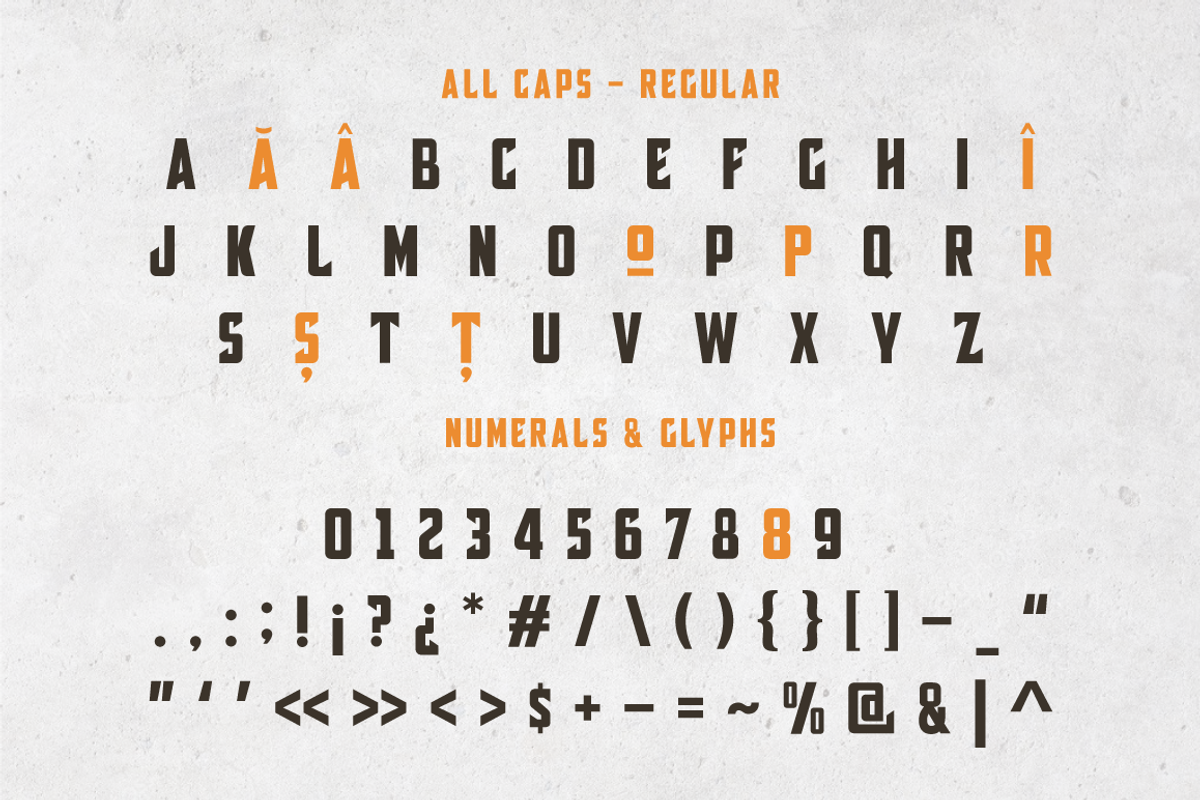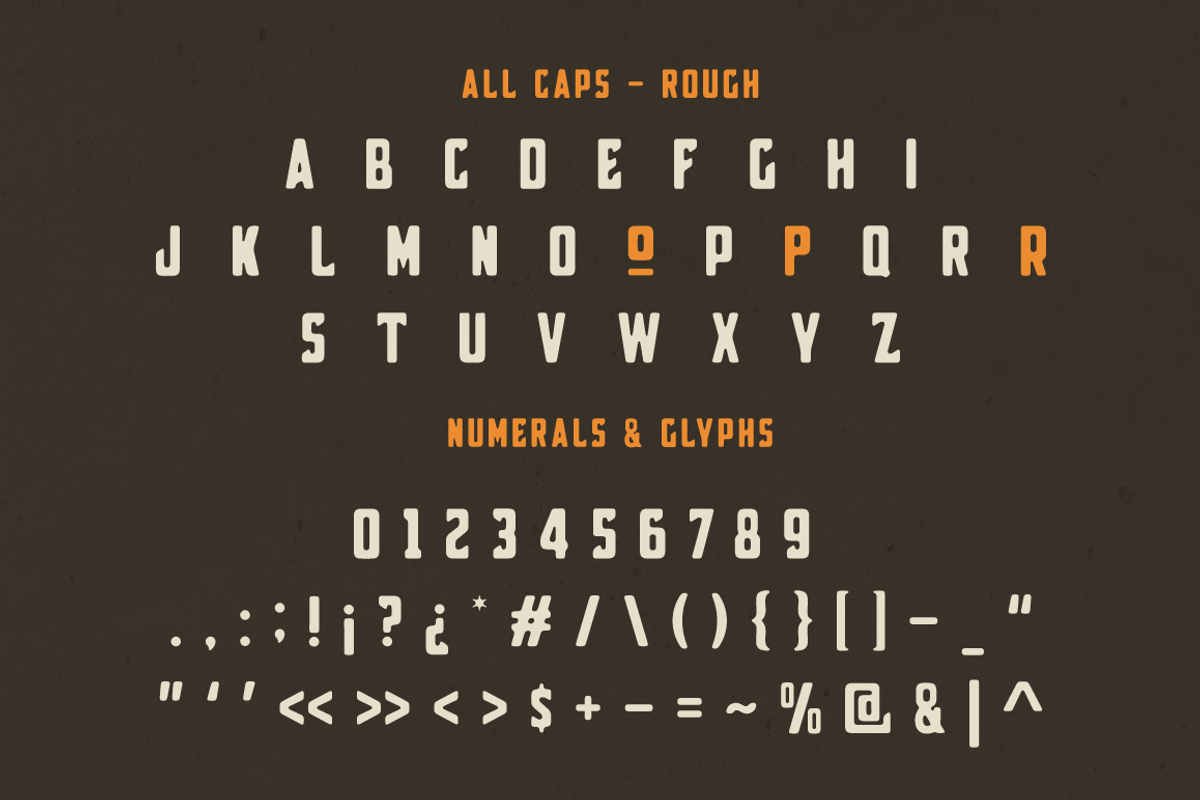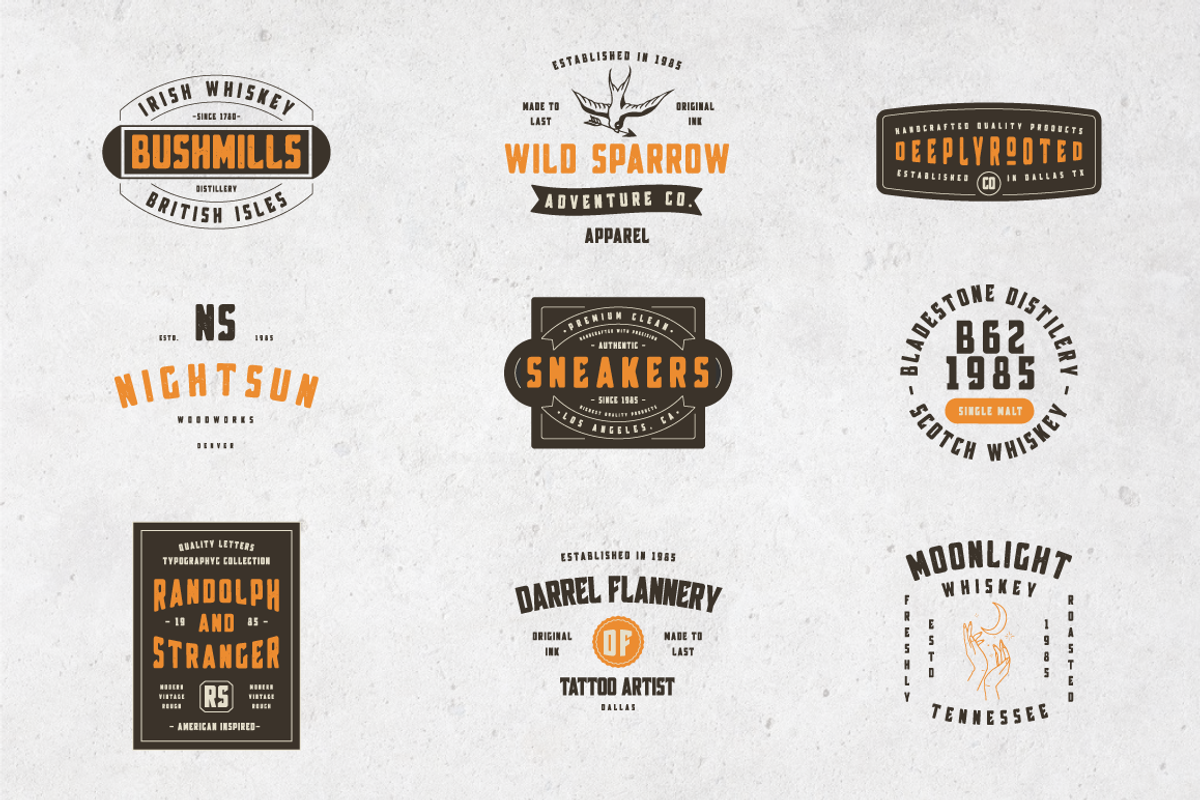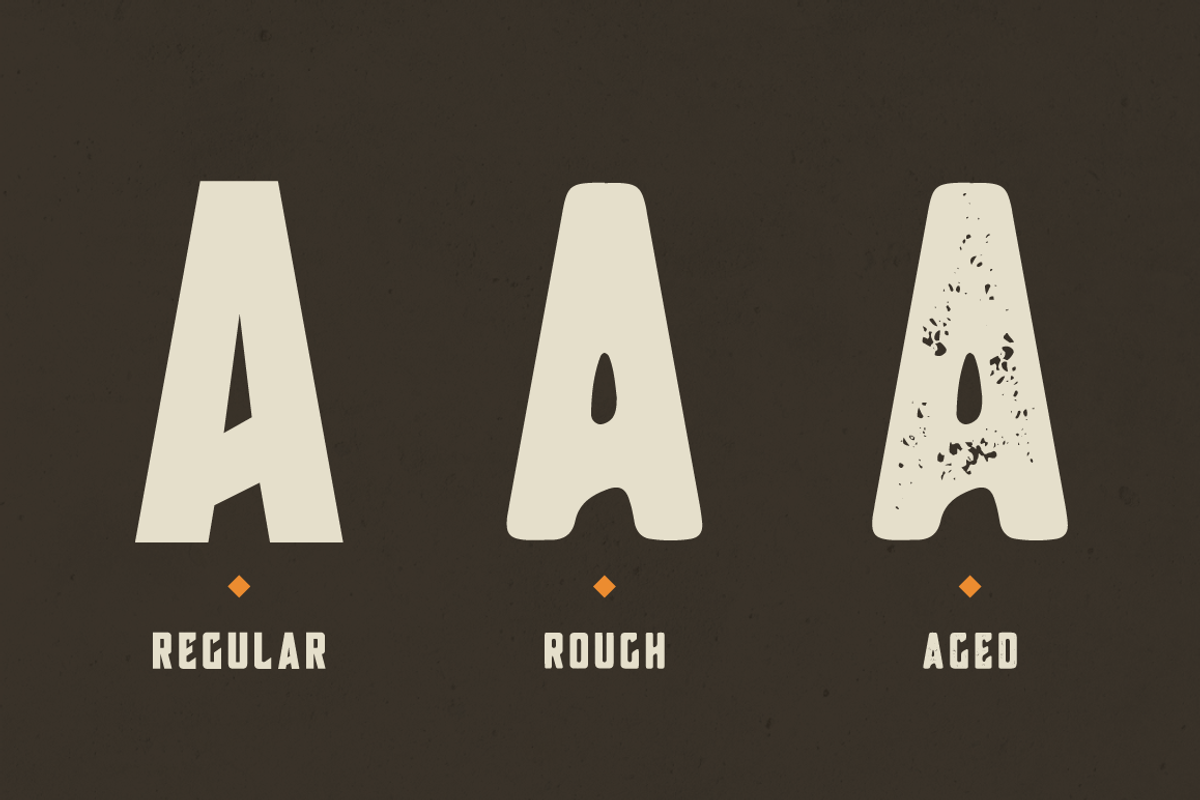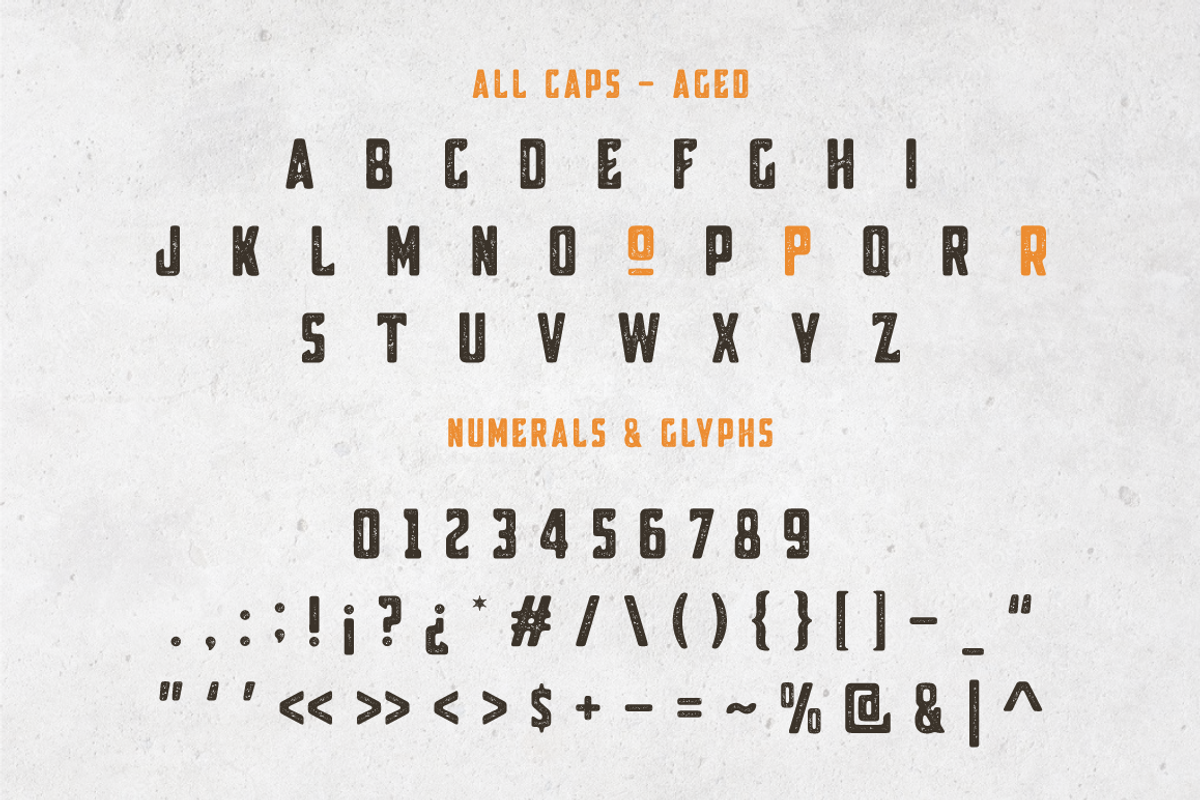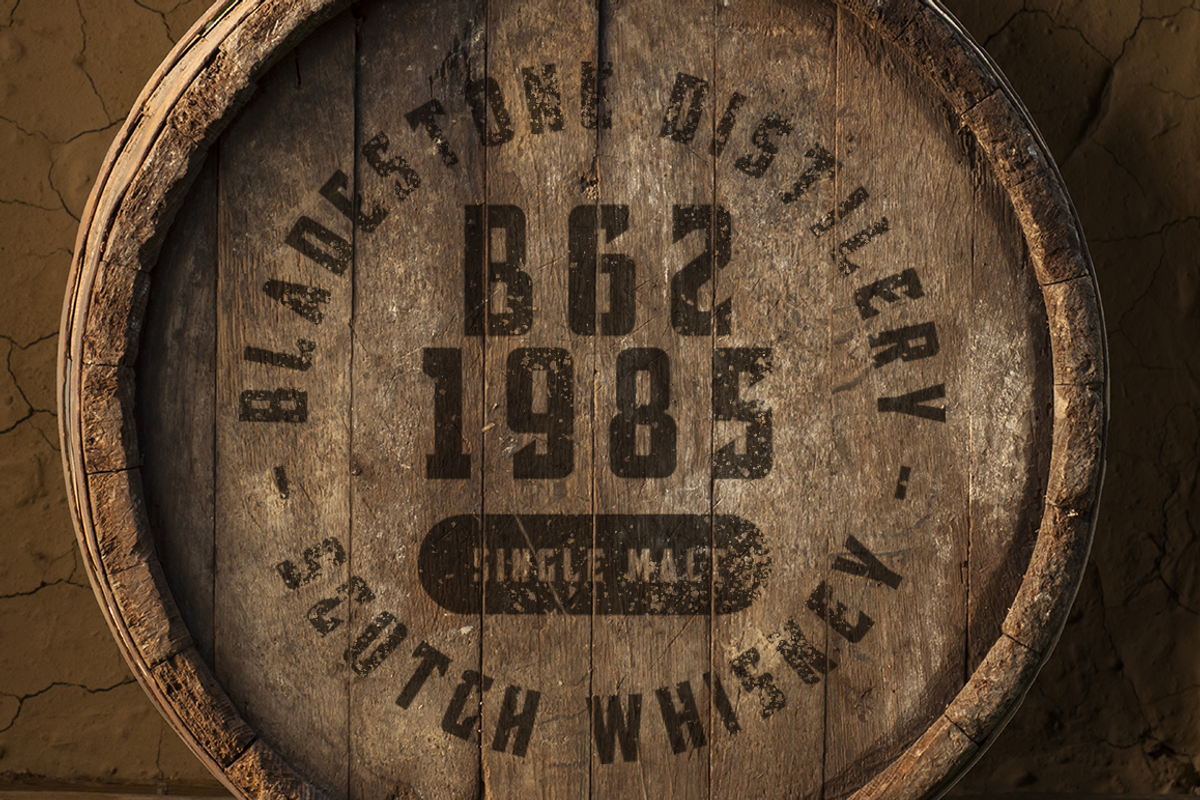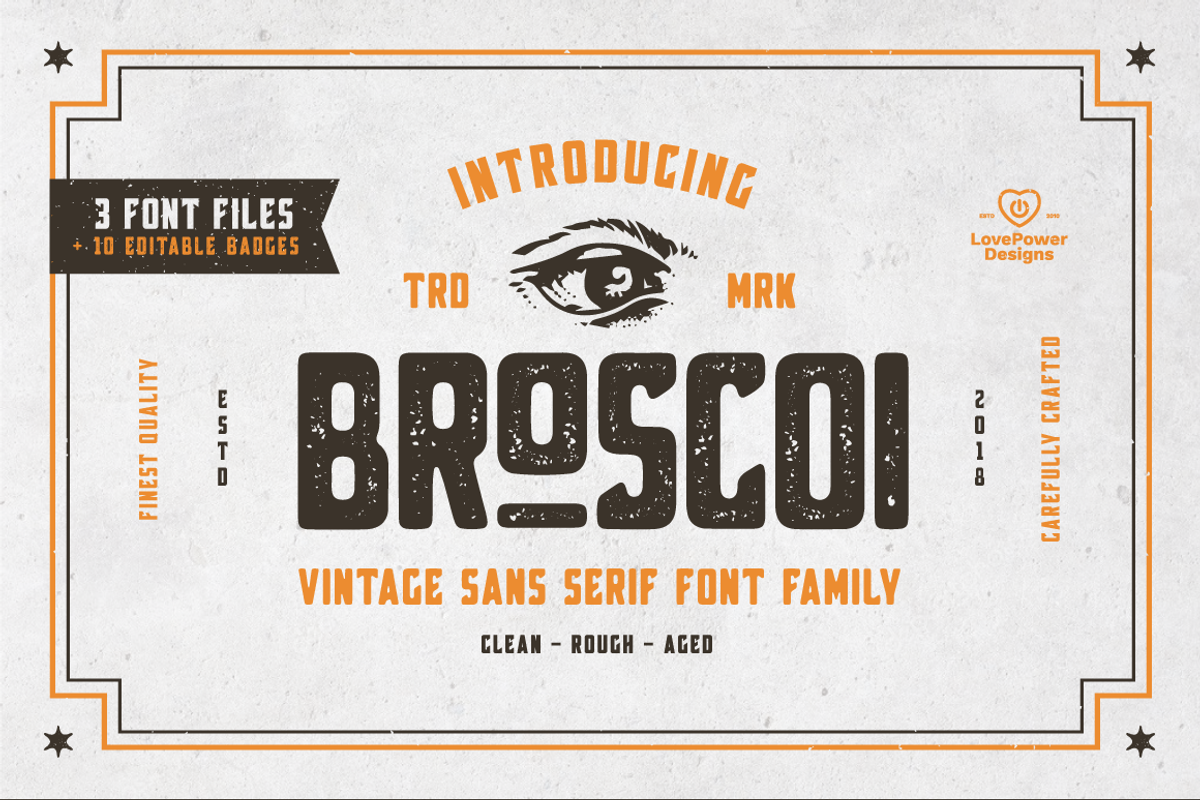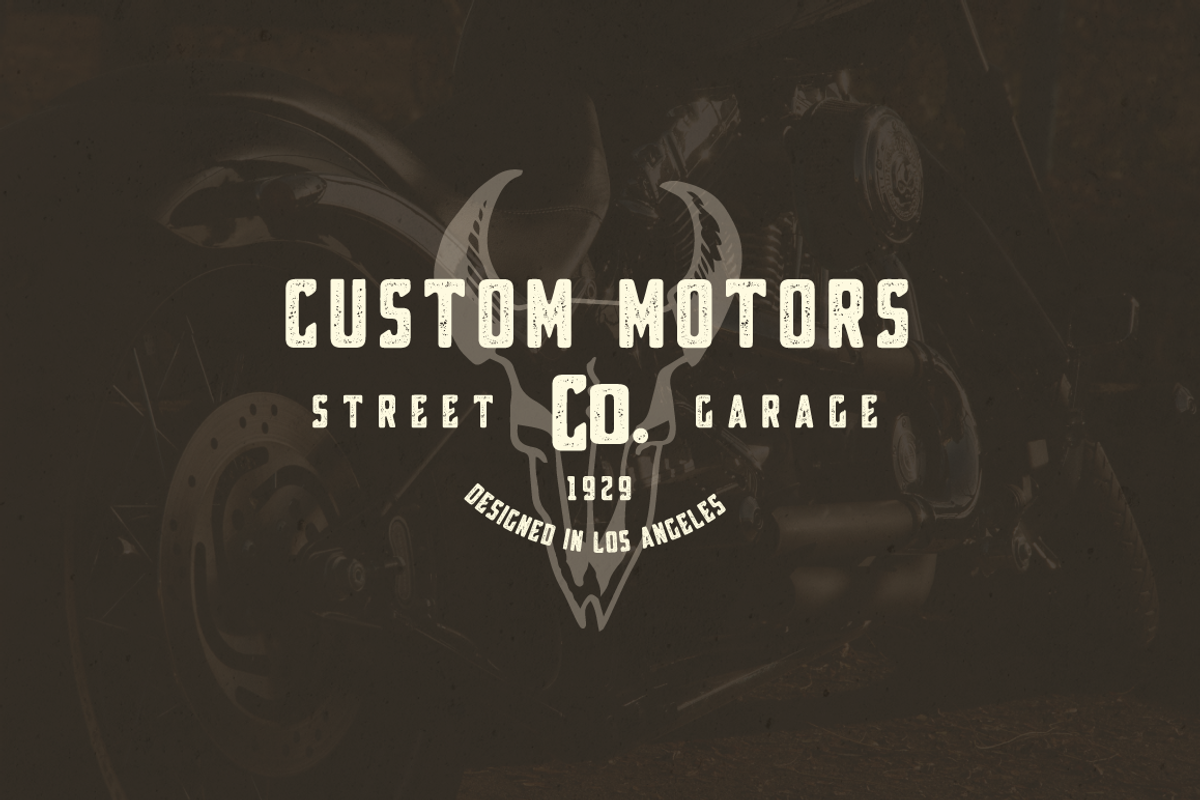
Broscoi - Vintage Font Family
Meet "Broscoi - Font Family"
After months of planning and execution, the Broscoi Font Family is available for sale. With it's unique & distinct characteristics it sets itself apart, while also maintaining a strong timeless appeal overall.
It works nicely for projects that require a more refined yet vintage aesthetic.
It would be a perfect choice to design posters, logos, t-shirt and magazine prints, eye-pleasing typographic designs and more.